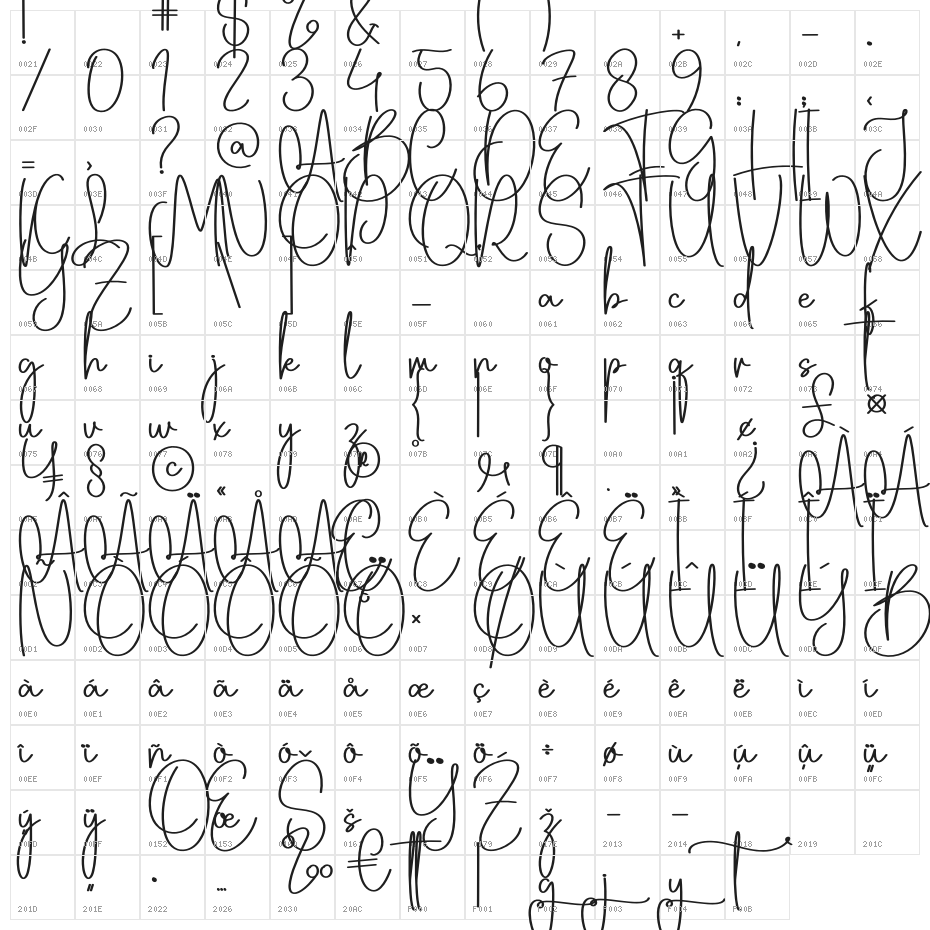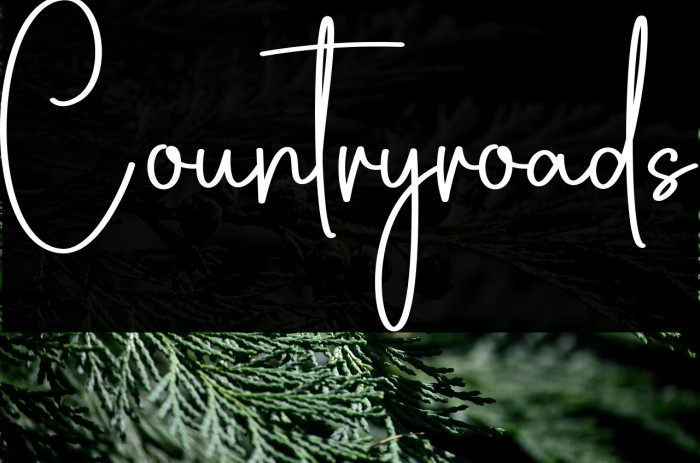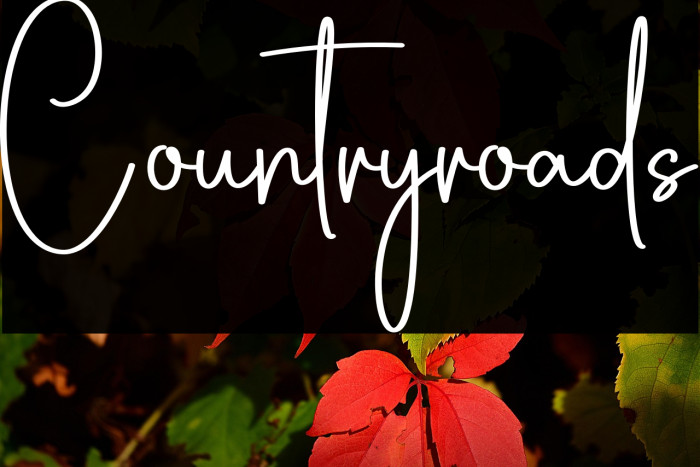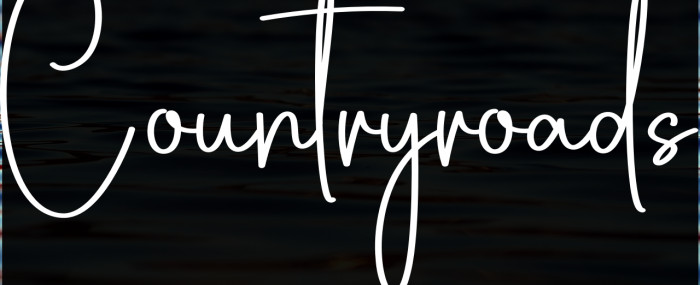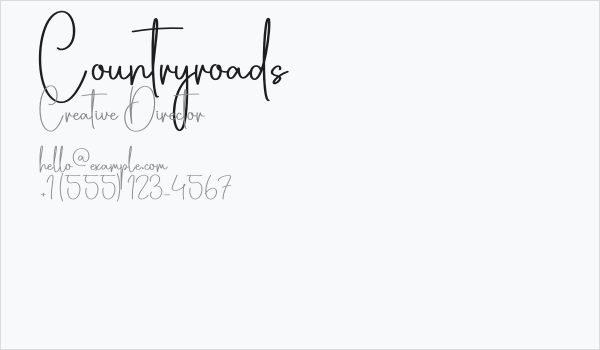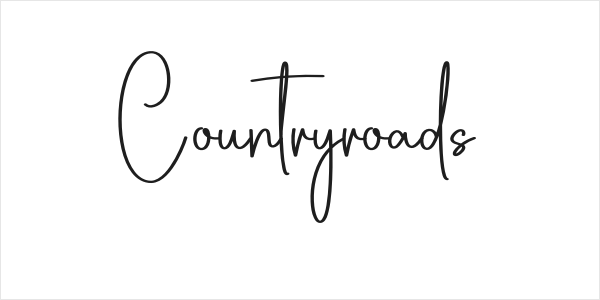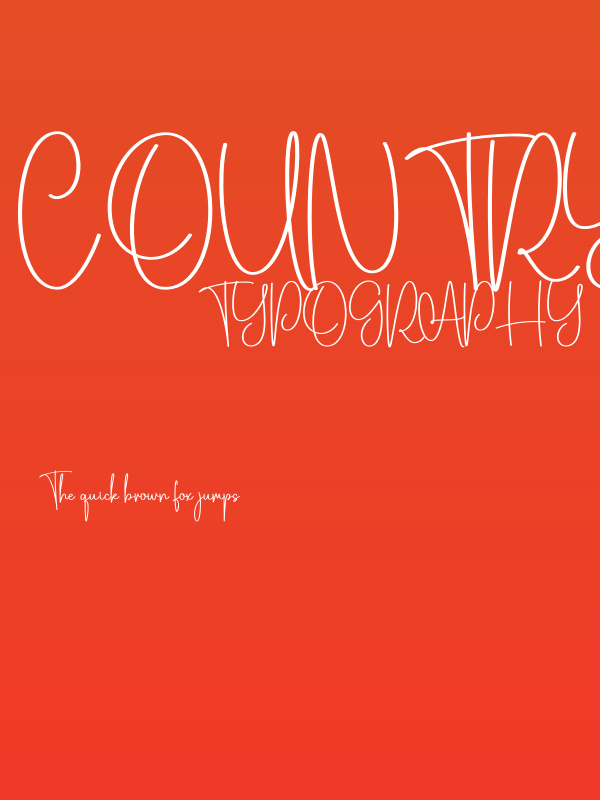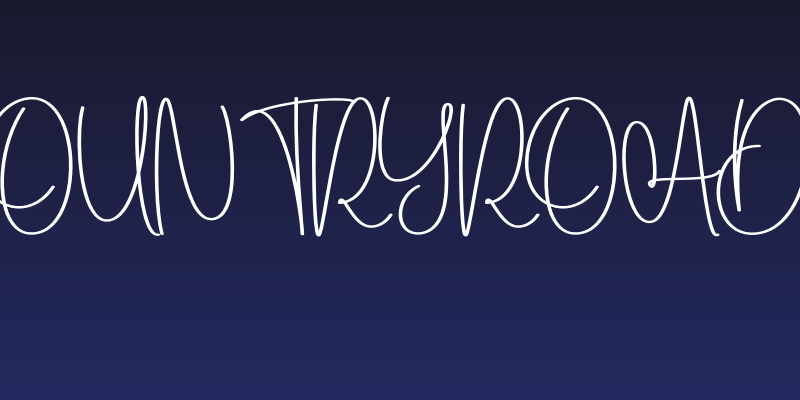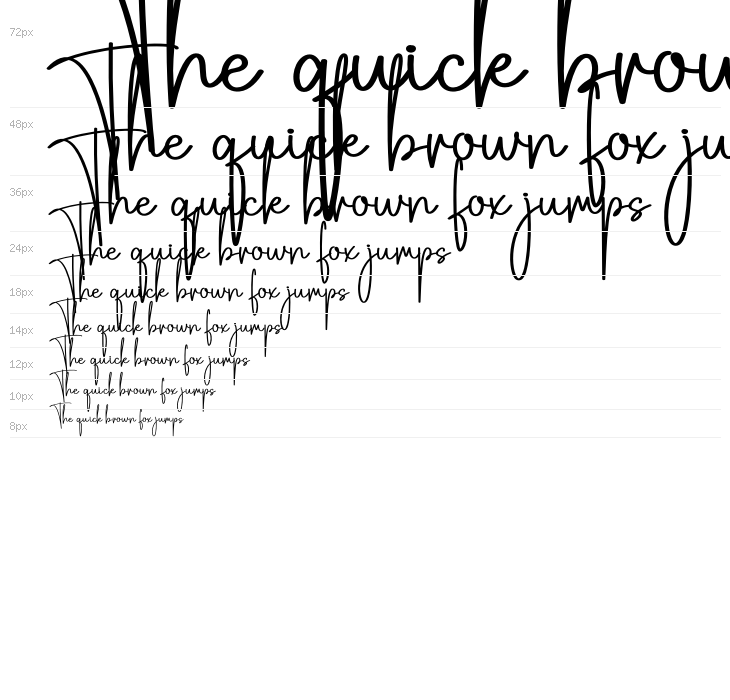
Countryroads Font
Countryroads Description
This font features a playful and whimsical handwritten style with a casual and flowing appearance. The uppercase letters are tall and narrow, while the lowercase letters have a more relaxed and elongated form. The strokes are smooth and consistent, with a slight variation in thickness that adds a dynamic feel. The numbers and special characters maintain the same lively and informal aesthetic, making the font suitable for creative and informal projects. The overall design is both approachable and stylish, offering a unique charm that stands out.
| Width | Condensed |
| Use Case | Logos, Headlines, Invitations |
| Proposed Projects | Ideal for greeting cards, invitations, personal branding, and creative social media graphics. |